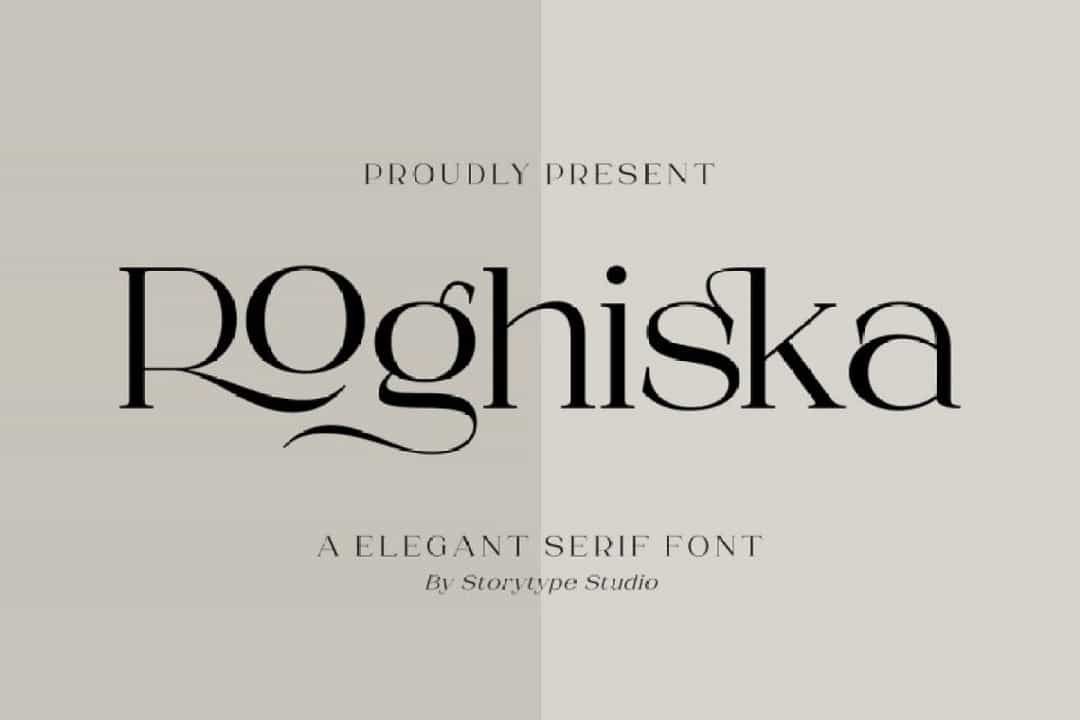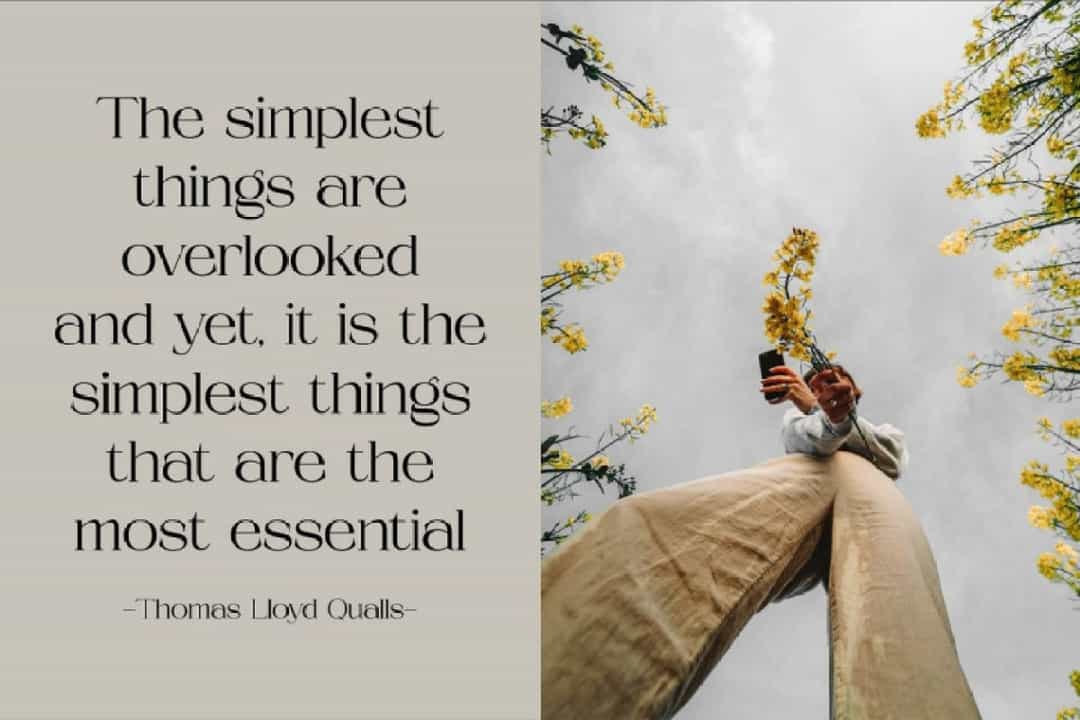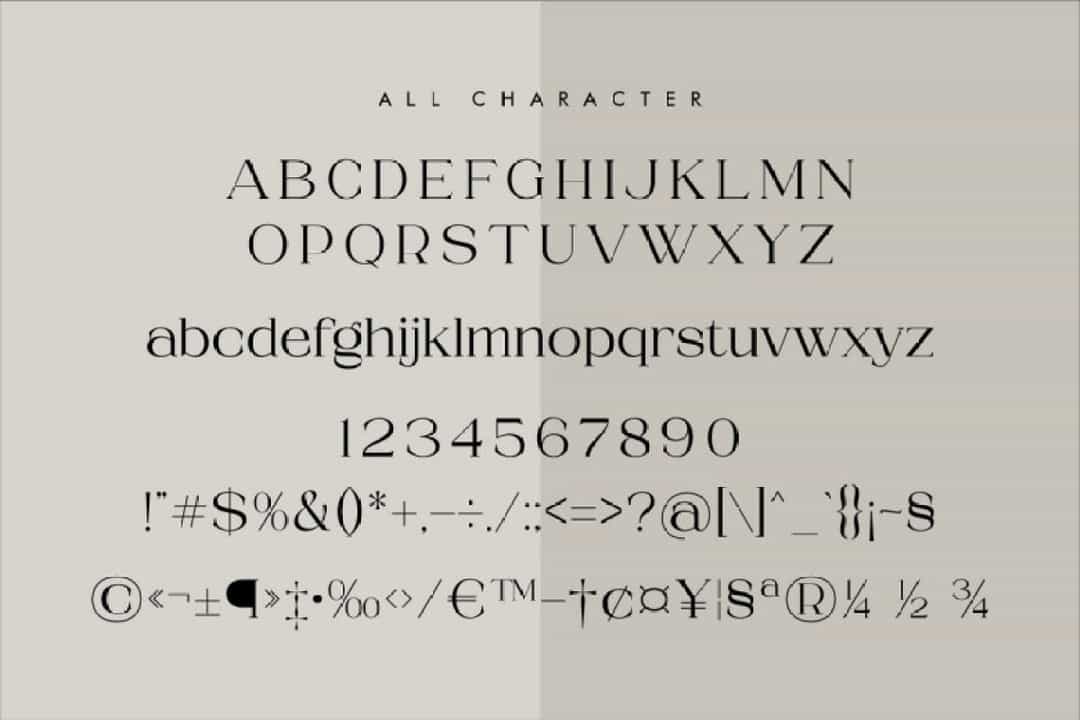
Roghiska Font, designed by Storytype is an eye-catching modern serif typeface with its distinct style and modern appearance. Ideal for creating classy logos, movie or book covers, fashion label clothing designs, magazines letters, quotes and much more, this typeface makes an elegant impression wherever used.